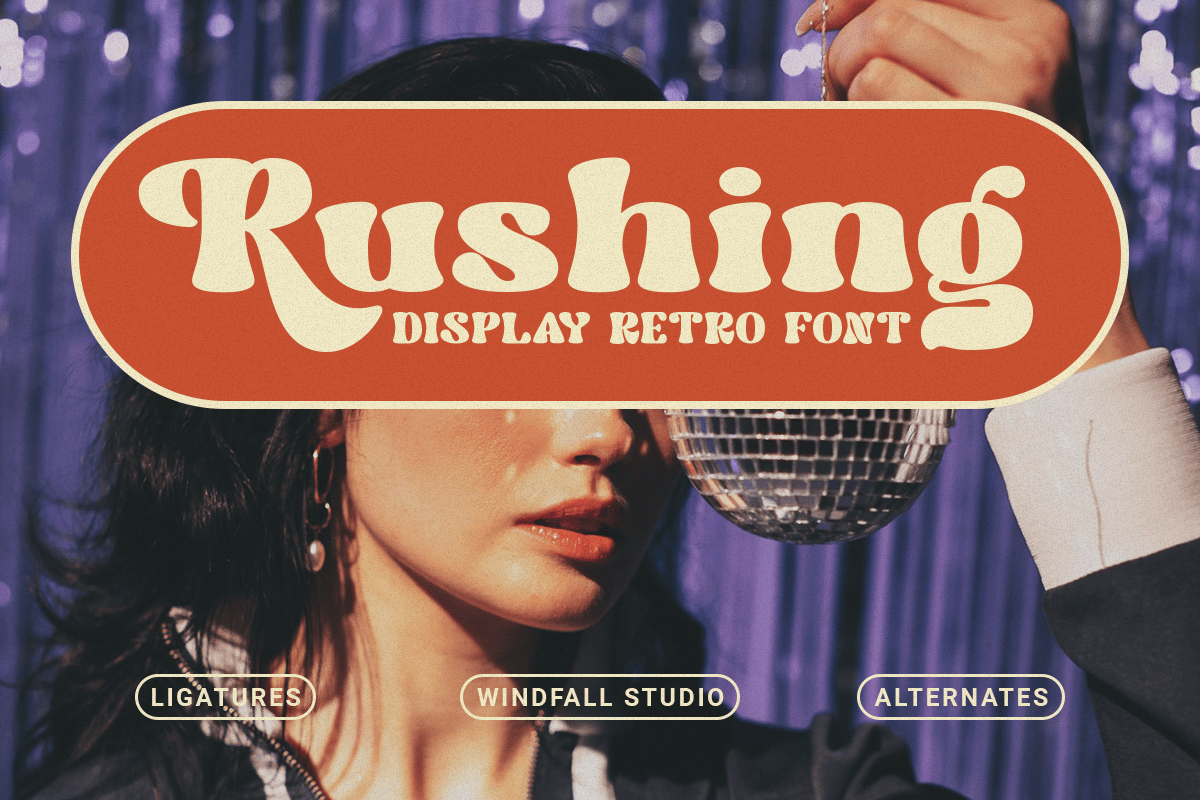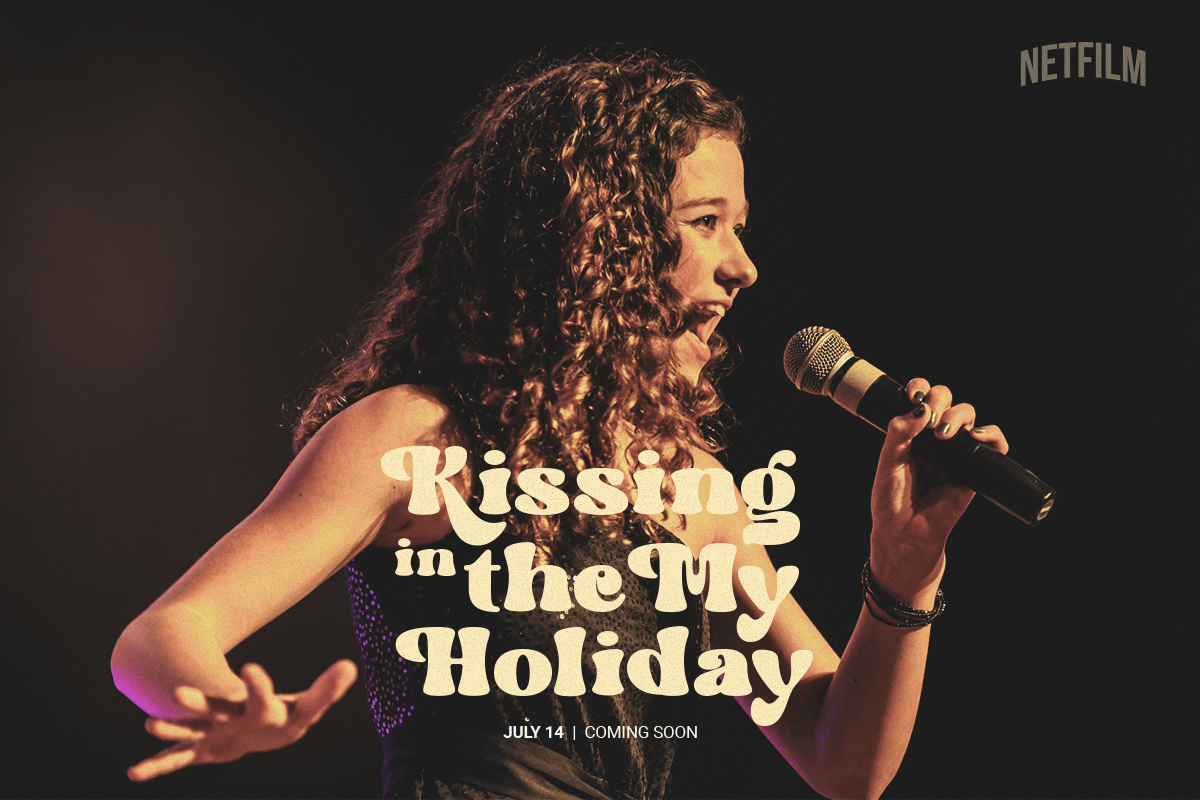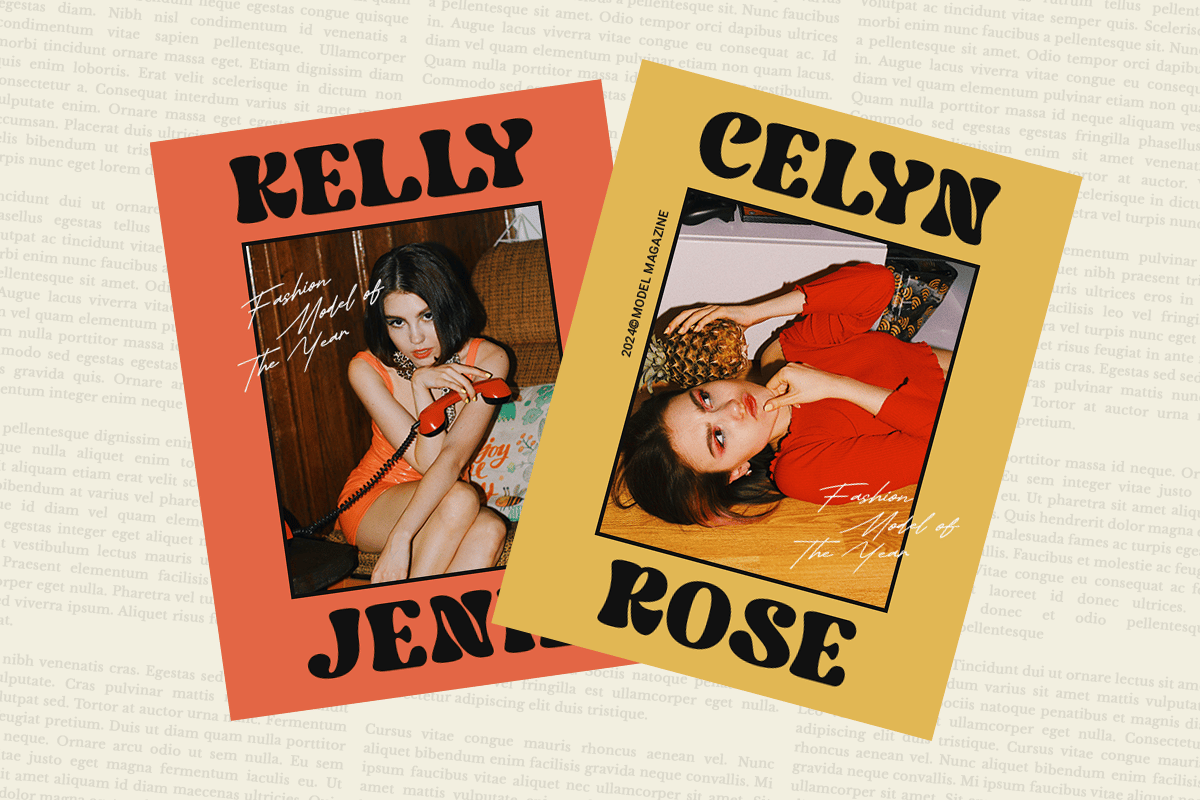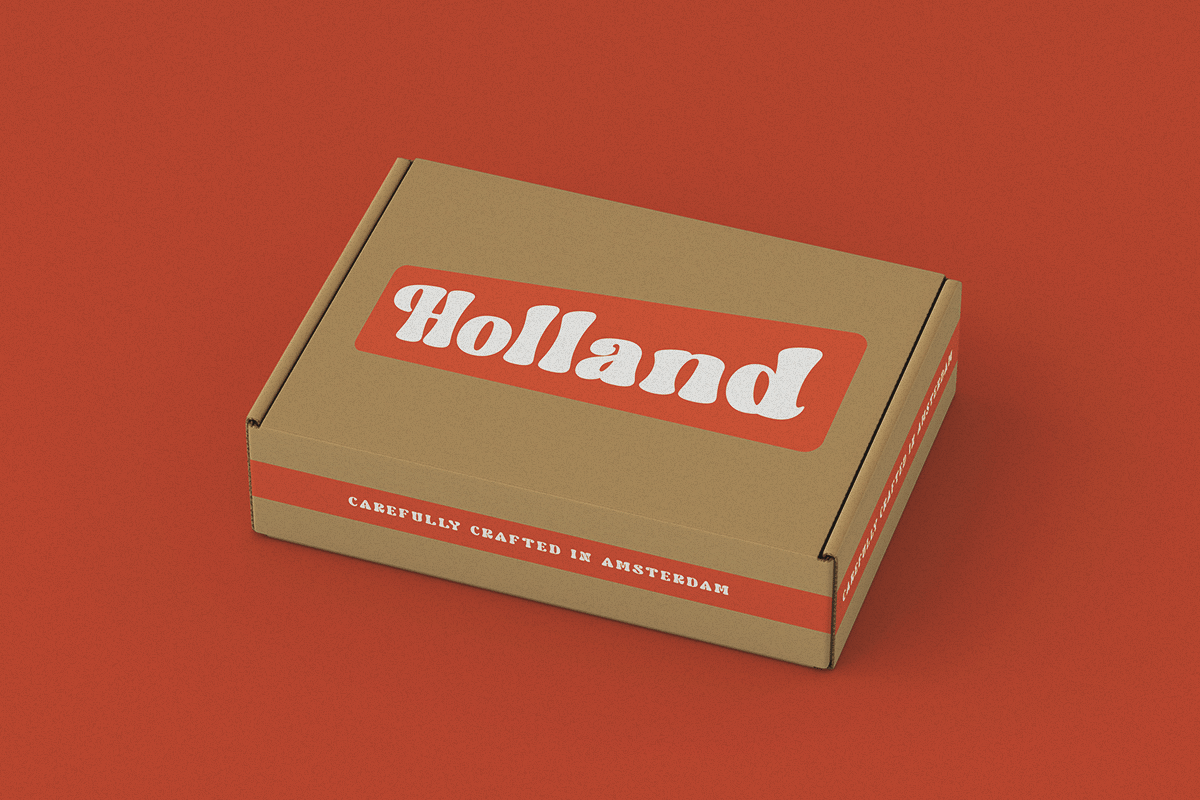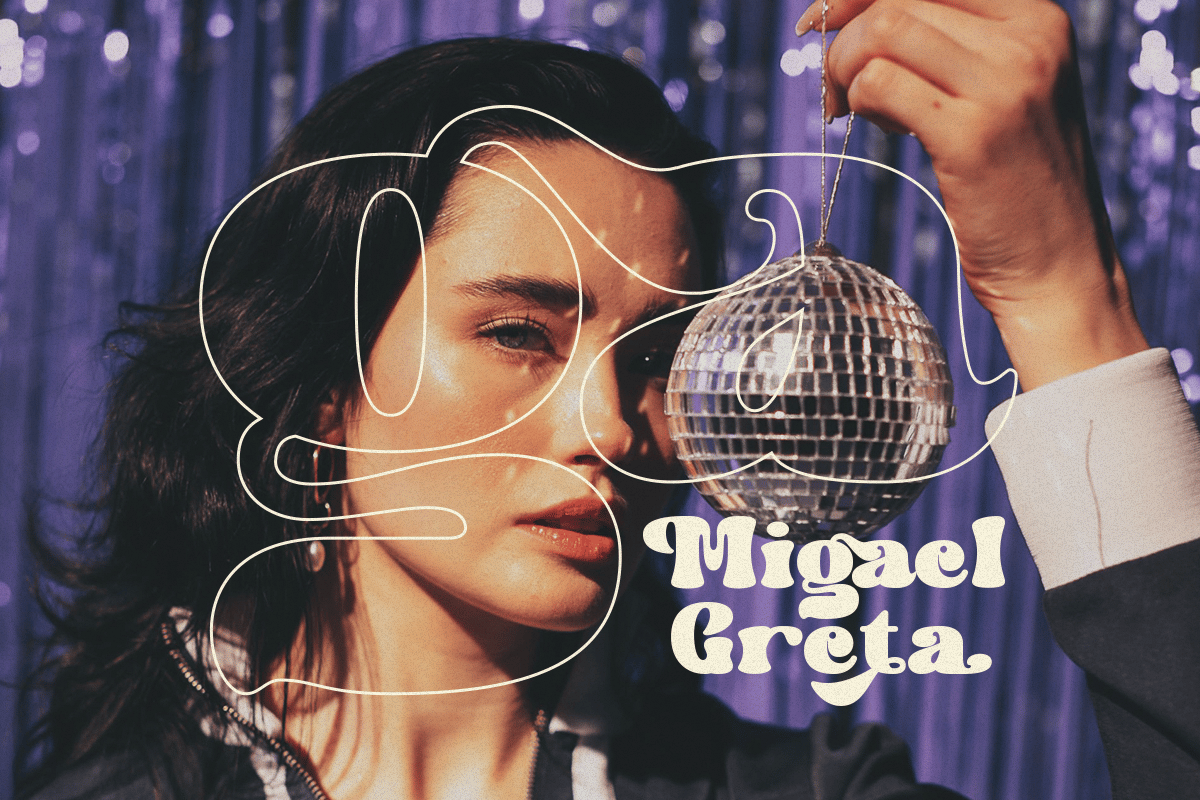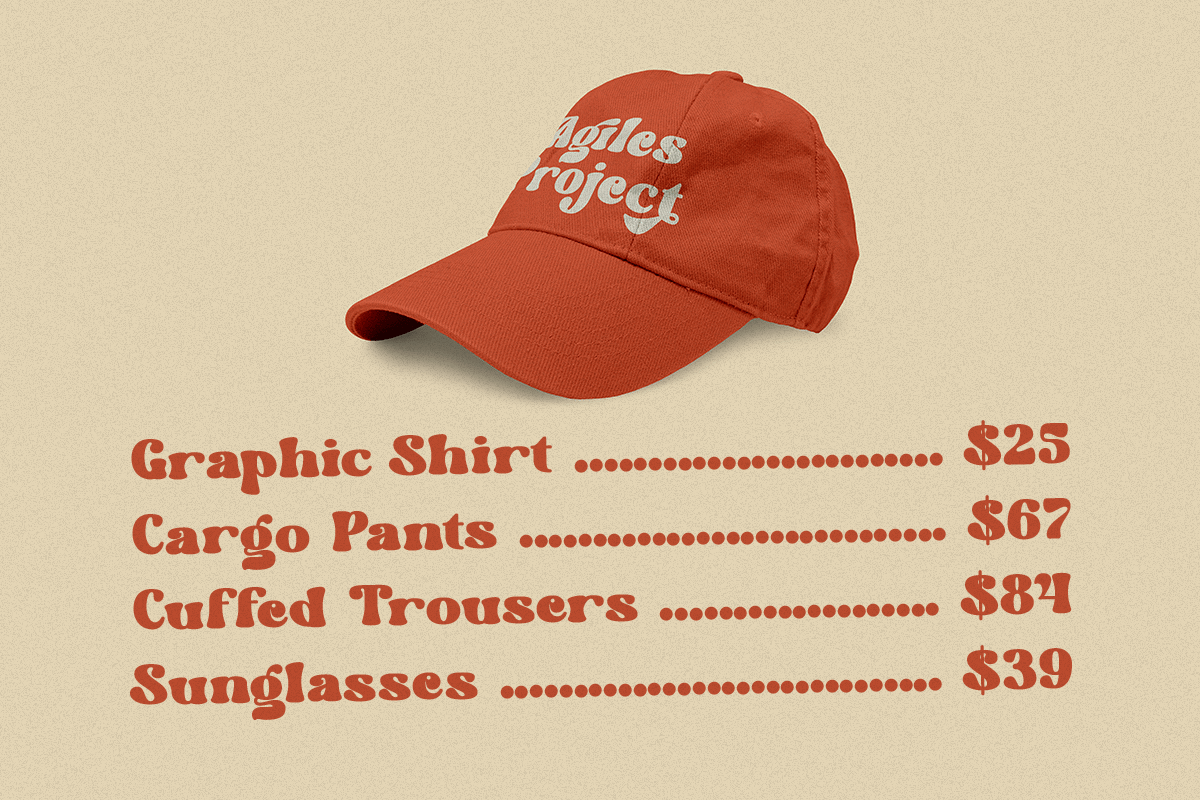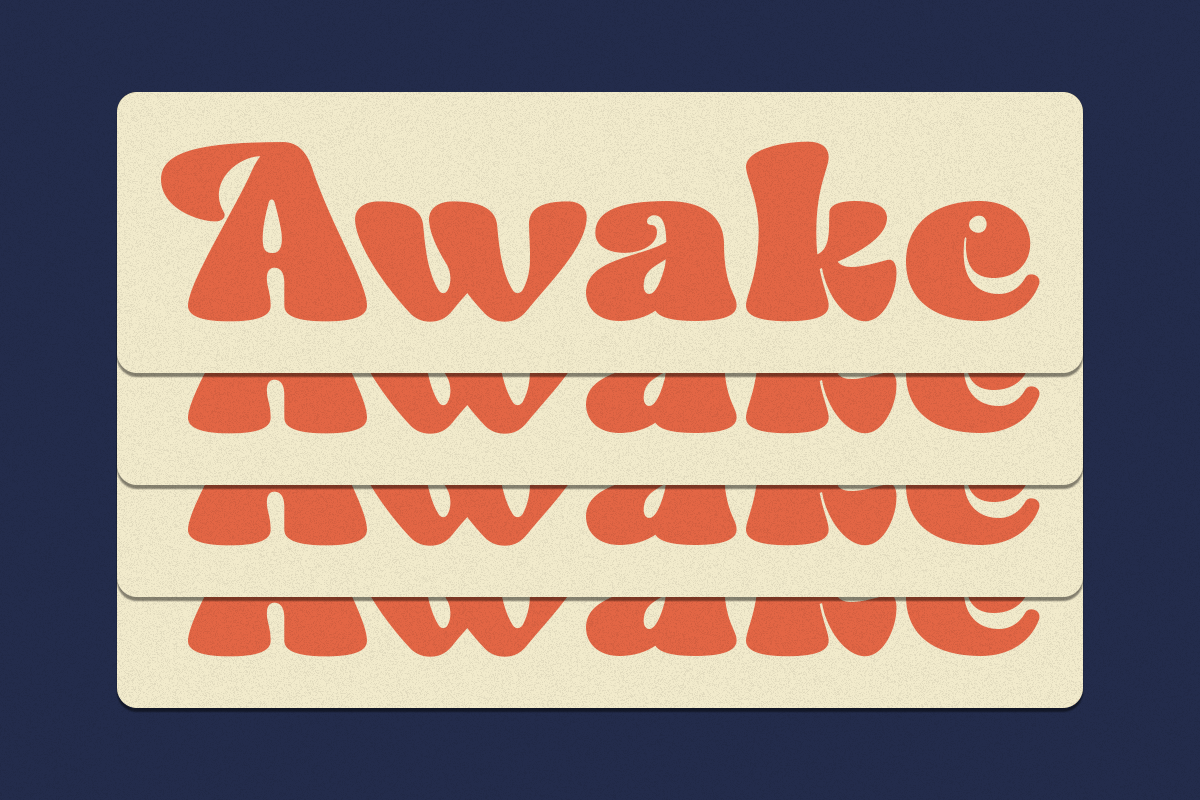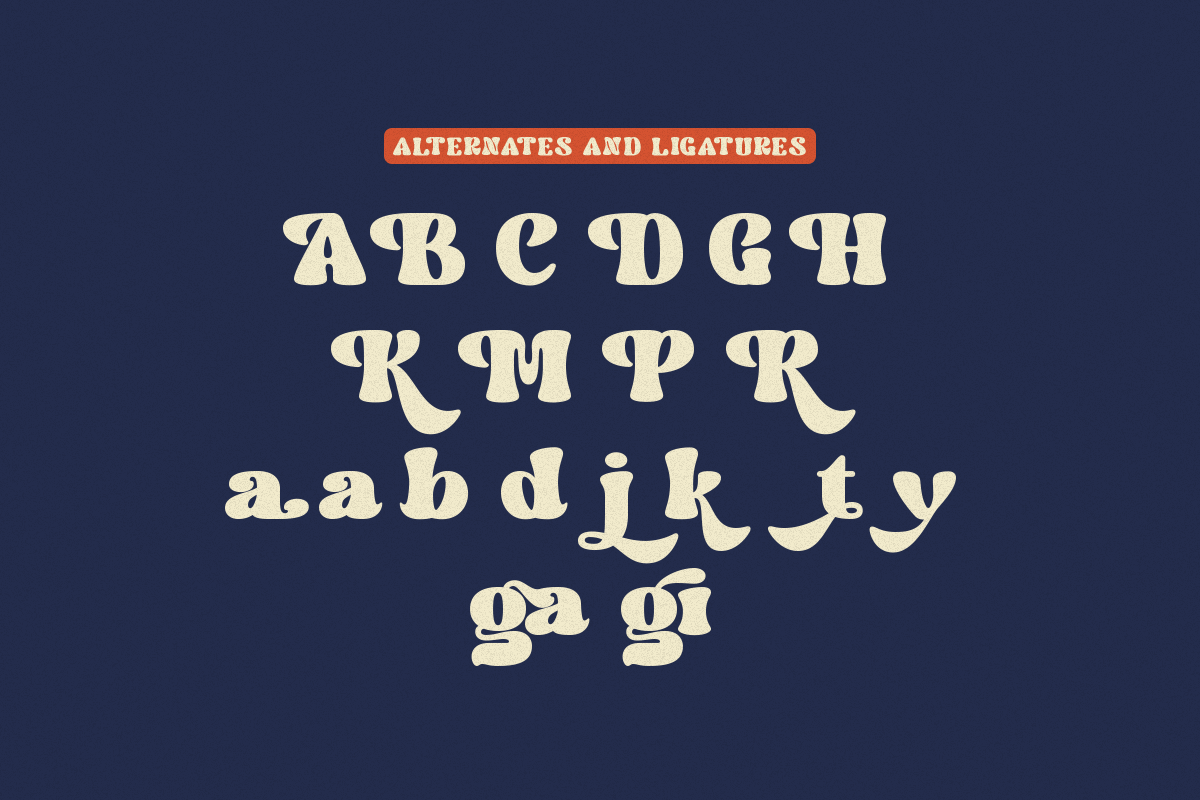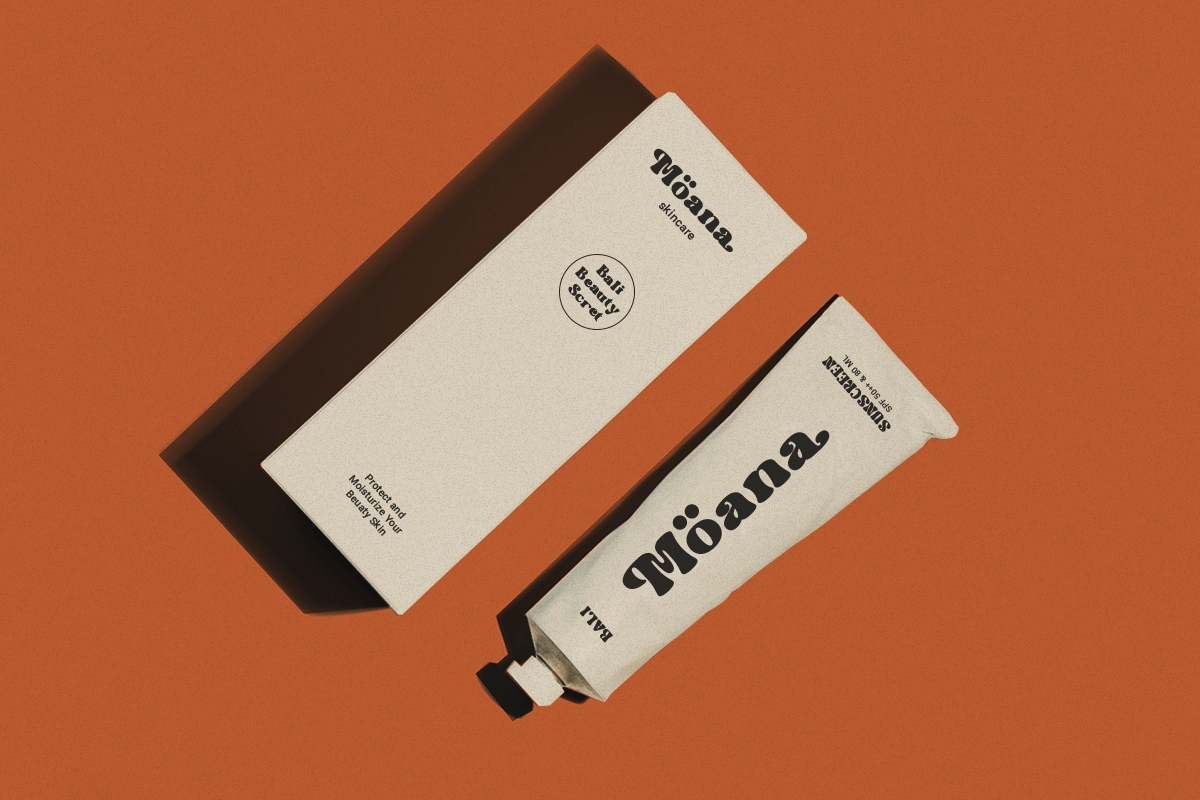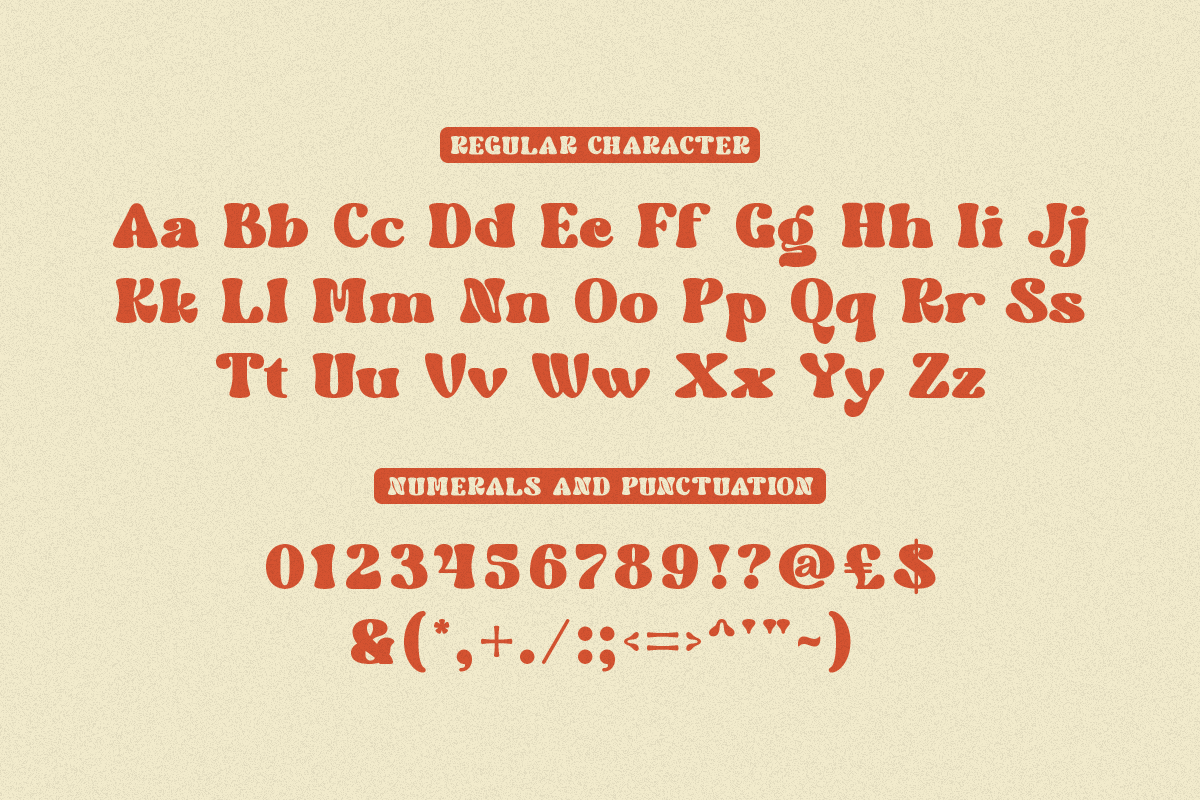
Rushing – Cursive Display Retro Font
Rushing is a display retro font that blends cursive charm with a futuristic touch, creating a look that is both elegant and modern. Inspired by Helvetica and Futura, this font is perfect for college and corporate themes. With a funky character and art deco influence, Rushing delivers a unique and captivating appeal. Its minimal design ensures simplicity while exuding beach and tropical vibes, ideal for summer and nature-themed projects. Rushing carries a cinematic and premium feel, making it a fancy choice for high-quality creative designs. Combining the essence of modern minimal styles with thin letterforms, this font celebrates the harmony between timeless beauty and the future of design.
Rushing Features:
- Alternates & Ligatures
- Accented characters